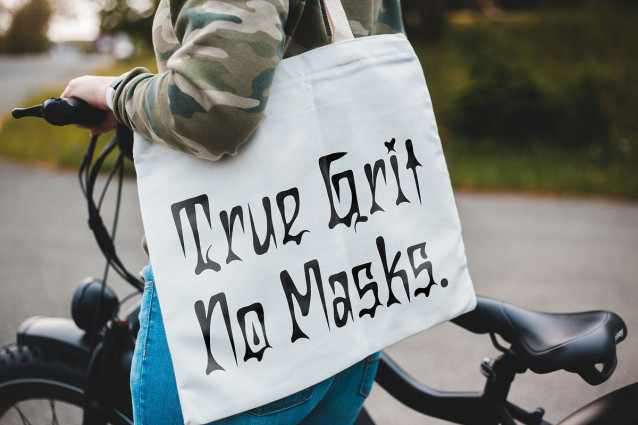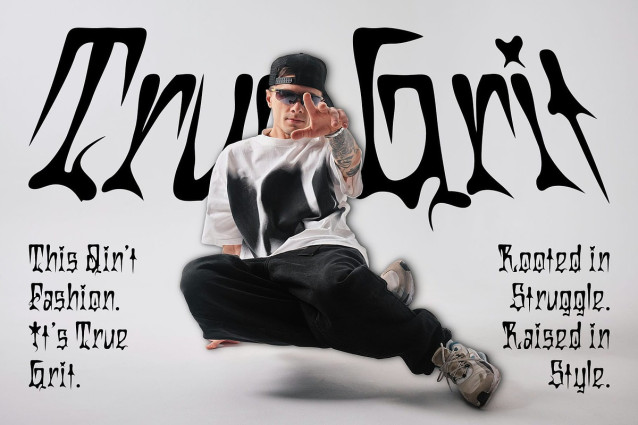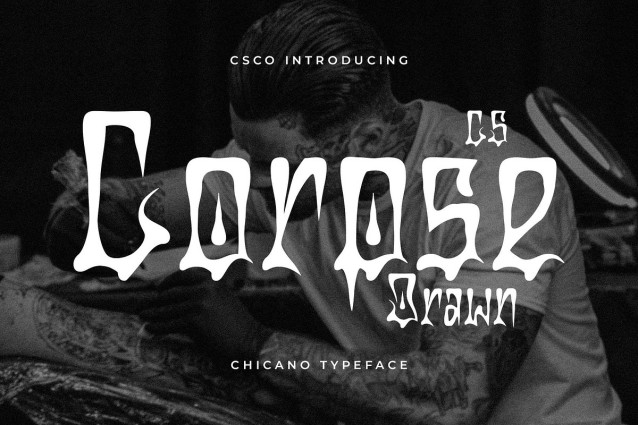
CS Corpse Drawn Font
CS Corpse Drawn Font is a striking display font inspired by the raw energy of Chicano graffiti art. Its funky, expressive, and highly stylized letterforms carry the spirit of the streets, capturing a voice that’s loud, proud, and unapologetically unique. Enhanced by a hand-drawn effect, the font takes on a rough, textured quality that adds depth, edge, and artistic grit.
Artistic Attitude Meets Urban Culture This font blends cultural influence with ornamental flair, creating a visual language that feels both rooted in tradition and free in expression. With bold strokes, sharp accents, and rebellious curves, this street-style funk font radiates an urban, underground vibe—perfect for designs that celebrate individuality, cultural identity, and bold visual impact.
Perfect for Expressive and Edgy Design Whether you’re designing for music albums, streetwear collections, event posters, or independent art projects, this bold font delivers an unmistakable personality. It speaks to audiences who appreciate bold aesthetics and authentic, expressive visuals with a strong cultural heartbeat.
A Statement Font for Creative Rebels More than just a typeface, this rebellious font is a visual statement. Use it to amplify messages of creativity, freedom, and identity—especially in designs that need to stand out, provoke thought, or reflect urban and alternative subcultures.